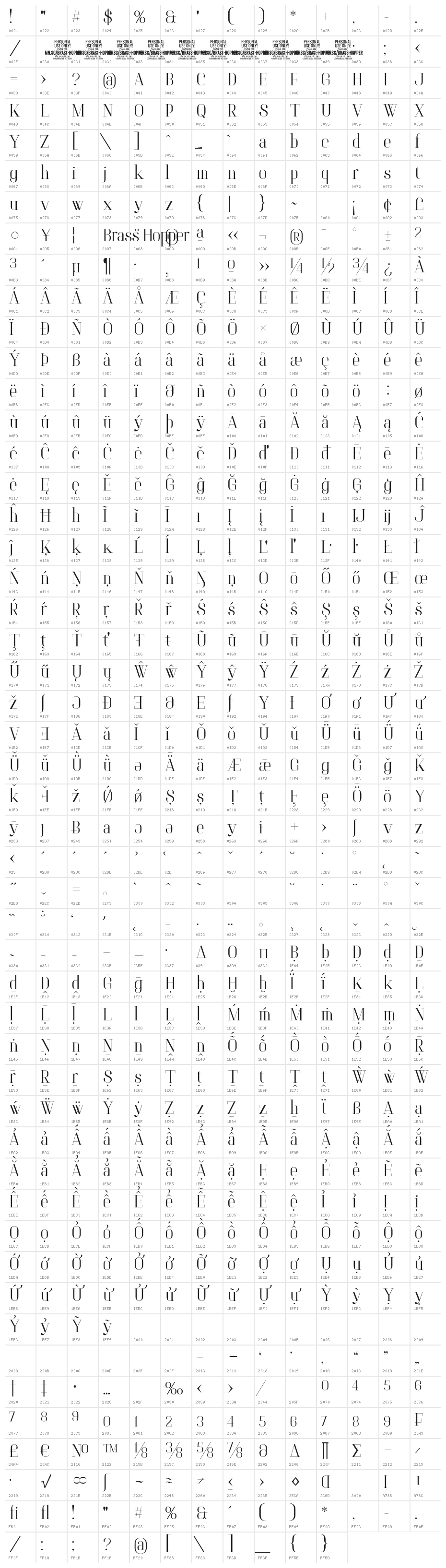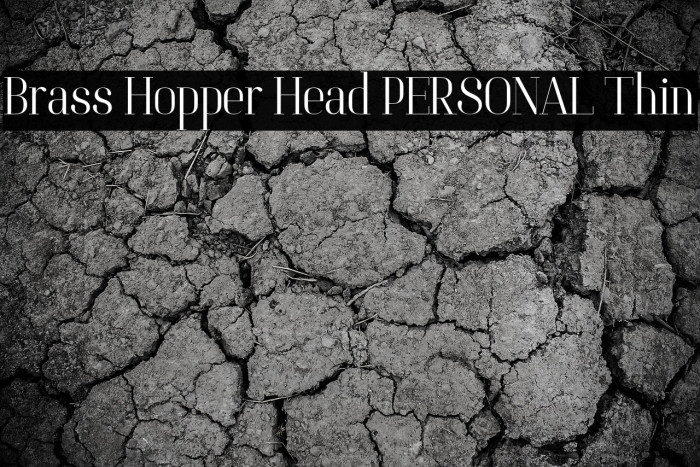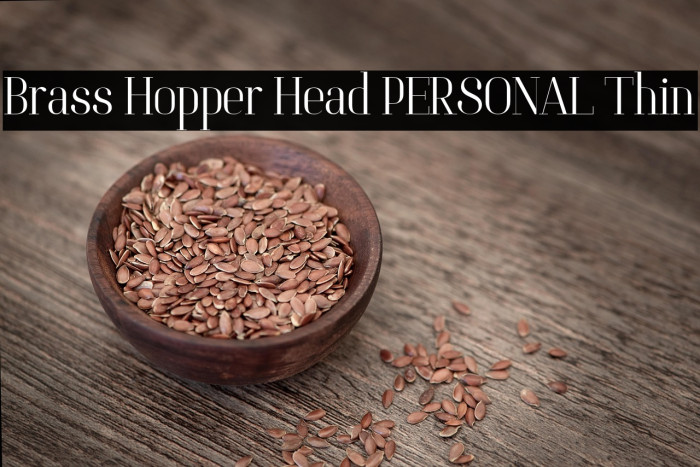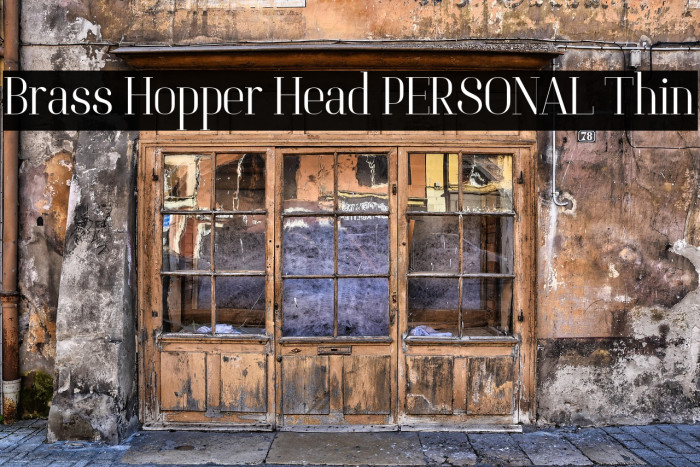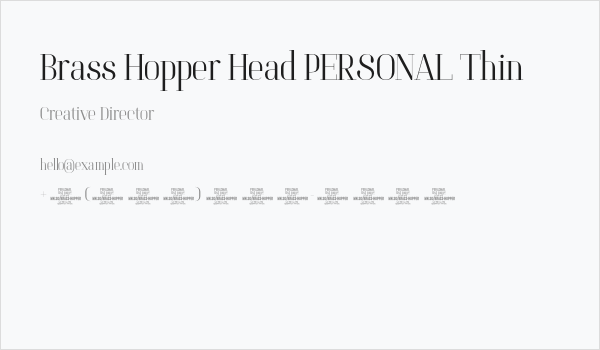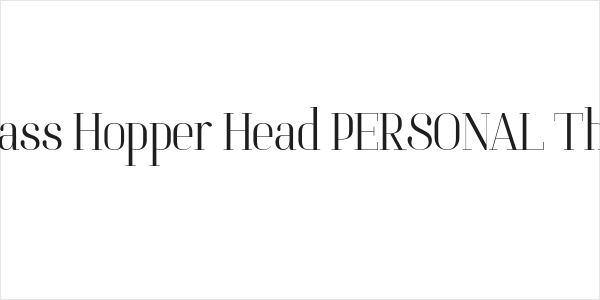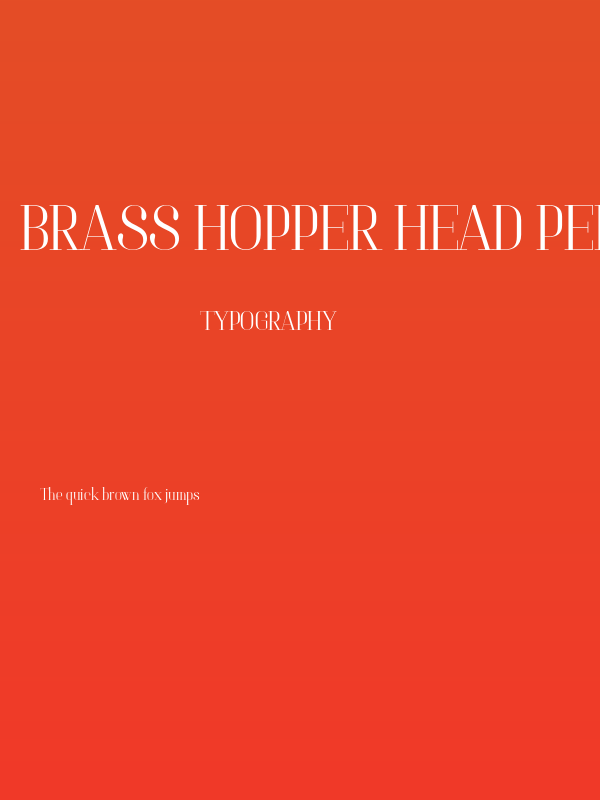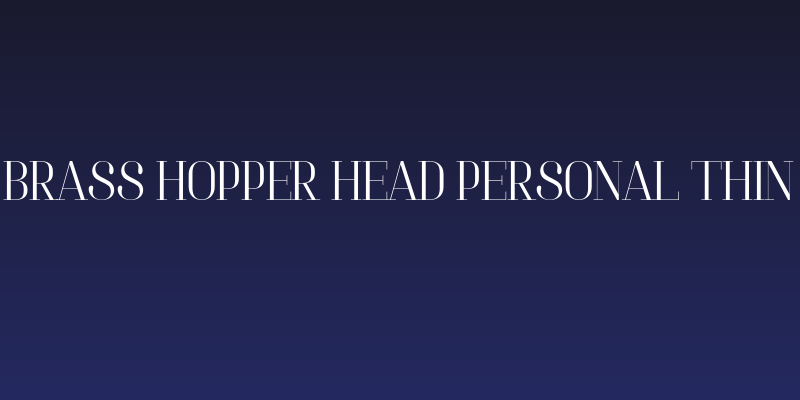
Brass Hopper Head PERSONAL Thin Font
Brass Hopper Head PERSONAL Thin Description
This font features a modern and elegant design with thin, elongated letterforms. The uppercase letters exhibit a tall and narrow structure, while the lowercase letters maintain a consistent style with slightly more curvature. The font's thin strokes and high contrast between thick and thin lines give it a sophisticated and refined appearance. The special characters and numerals are designed to match the overall aesthetic, providing a cohesive look across all elements. This font is ideal for projects that require a touch of elegance and modernity.
| Overall Style | Modern, Elegant |
| Proposed Projects | Ideal for luxury branding, fashion magazines, elegant invitations, and high-end product packaging. |